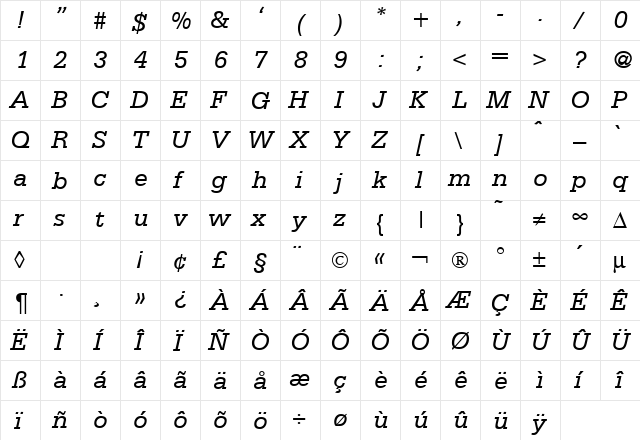
Sergeant RegularItalic
Design Context for Sergeant Typeface
Sergeant offers clean, dependable letterforms without strong stylistic allegiance, making it a practical choice for designers who need flexibility. The slanted form adds forward momentum and visual energy.
Pro Tip: Try Sergeant for annotation and caption copy alongside an upright companion — the contrast in angle creates a dynamic but ordered typographic system.